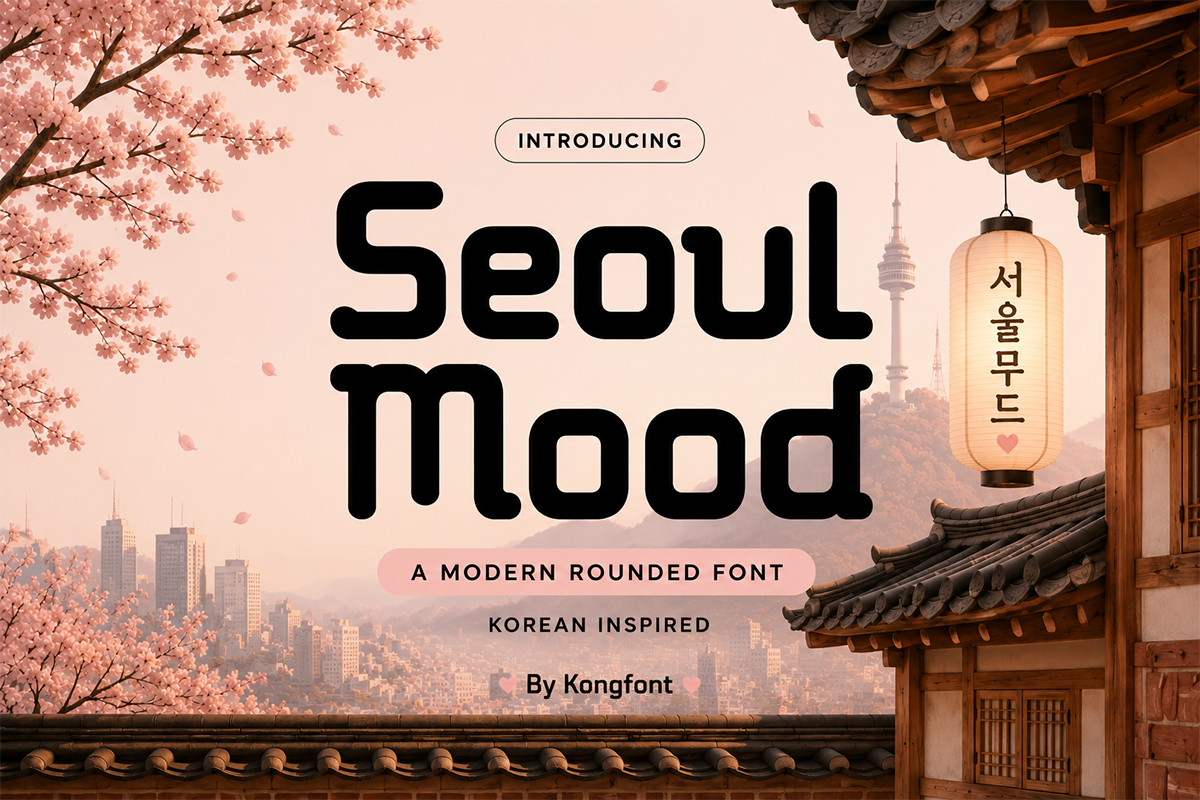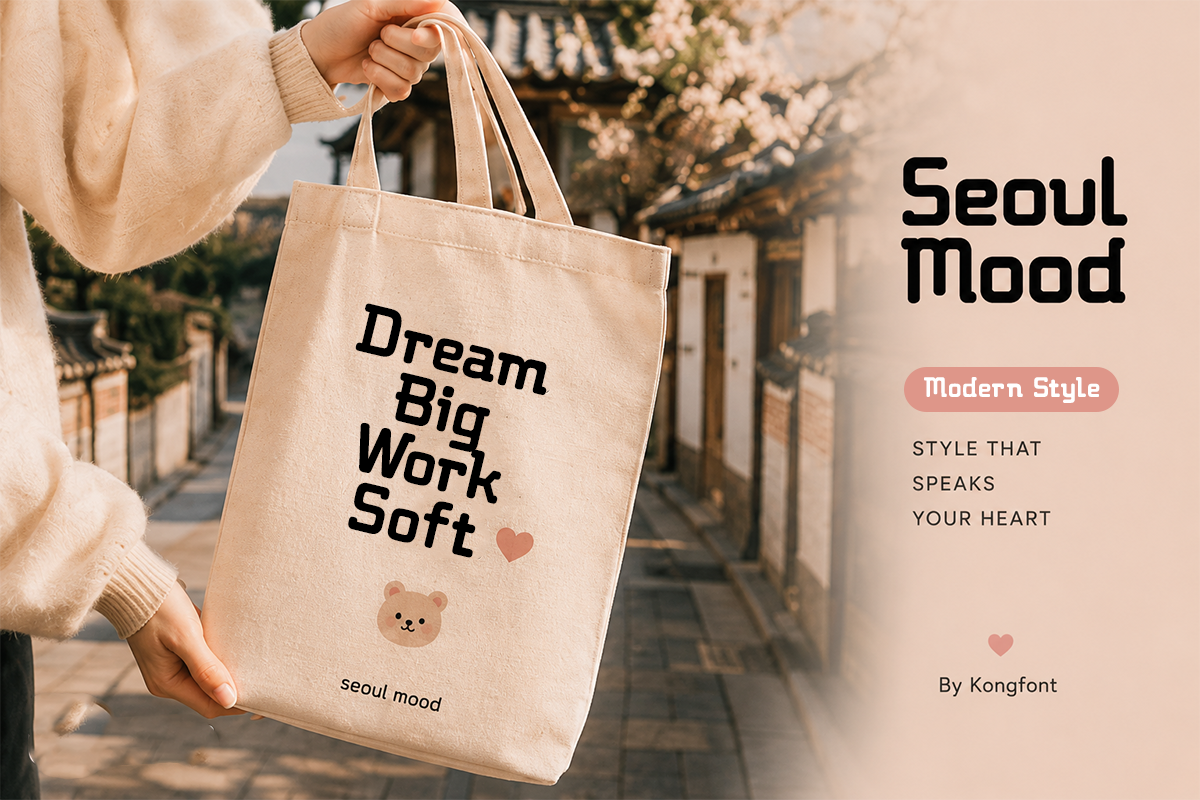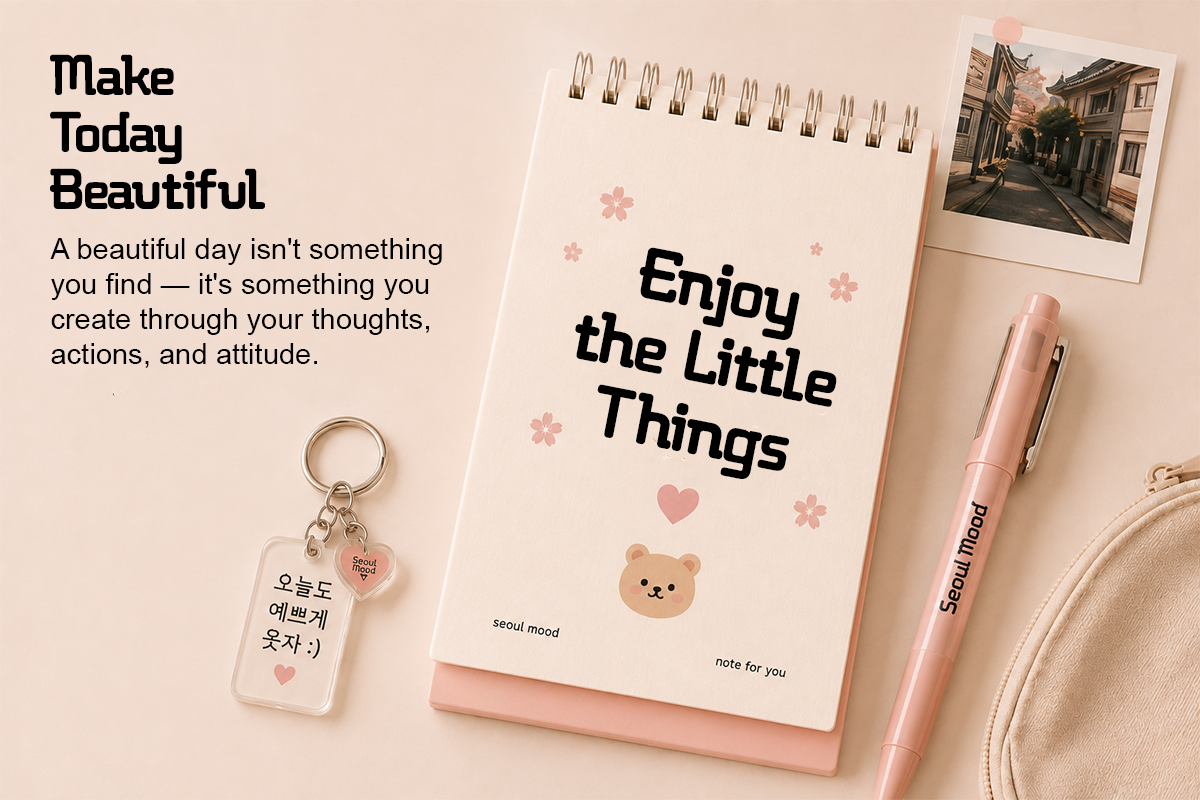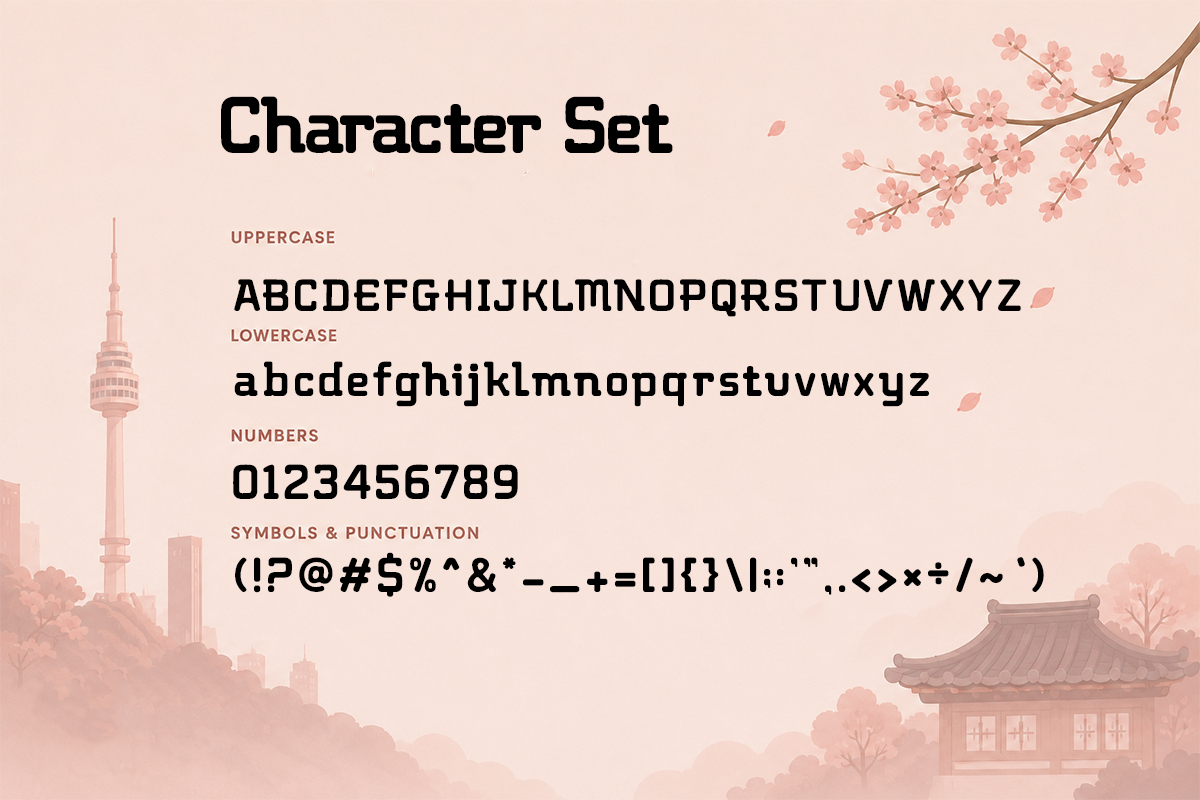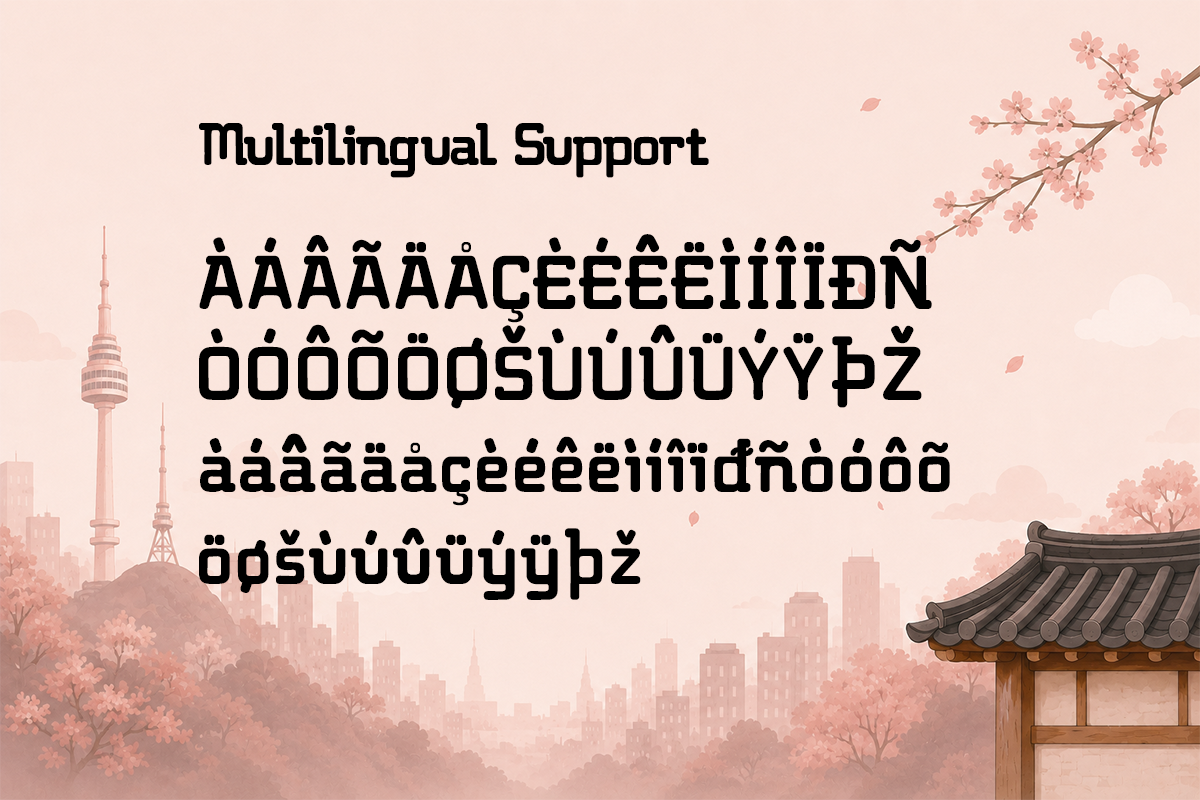
Seoul Mood A Modern Display Korean Font
Seoul Mood A Modern Display Korean Font is a modern rounded display font inspired by the warmth, simplicity, and contemporary charm of Korean design. Featuring smooth curves, balanced proportions, and clean geometric forms, this typeface creates a friendly yet stylish appearance that instantly stands out. Whether you're designing café branding, K-beauty packaging, lifestyle products, or social media content, Seoul Mood A Modern Display Korean Font delivers a fresh and inviting aesthetic with a touch of Korean minimalism.
Crafted for versatility, Seoul Mood A Modern Display Korean Font blends playful softness with modern sophistication, making it suitable for both professional branding and creative projects. Its bold rounded characters ensure excellent readability while maintaining a unique personality that feels youthful, elegant, and memorable.